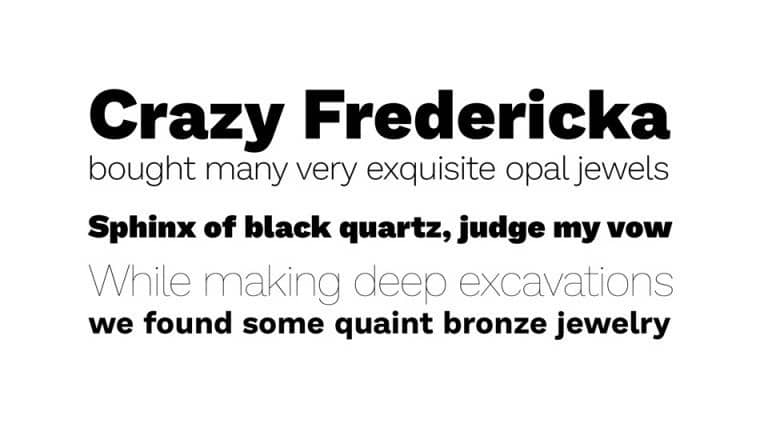
Prodigy Sans Font Family
Prodigy Free Sans is a completely new sans serif font family. It has a sophisticated feel to it, with some nice detailing and a somewhat more rectangular approach. Prodigy Font has a unique appearance, yet it also has a comforting familiarity of impartiality and objectivity. It also comes with a reasonable number of features that make it a true, versatile workhorse. It’s a powerful sans serif typeface that’s also attractive. The high x-height is a trademark that promotes visibility across all platforms. In both print and screen designs, the crisp lines will help you make a statement. Wei H. created and published the book. The Font was on May 5, 2020.
We recommend this sans serif typeface for logos and branding, invites, quotes, blog headers, posters, advertising, and body content, among other things. For the most part, the Font is ideal for magazine titles and layouts. The Font will also look in any type of billboard. It has a fresh and stylish style that can be used to give your creations a personalized experience.
Prodigy Free Sans Font Family View
| Style | Sans-Serif Typeface, Geometric. |